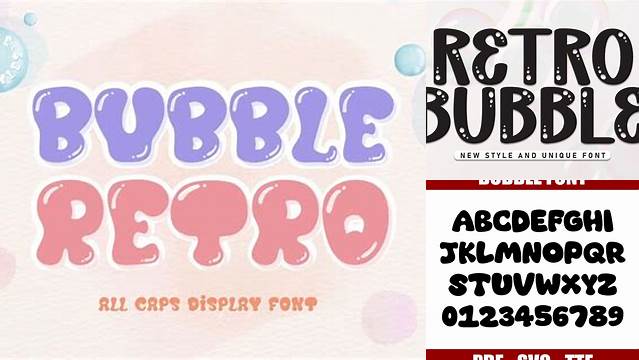
Retro Bubble Script BC Font: Free Download Guide
Hey guys! Are you on the hunt for that perfect retro bubble script BC font to spice up your designs? You've come to the right place! This font style is super popular for its playful and nostalgic vibe, making it ideal for posters, logos, invitations, and all sorts of creative projects. But finding the right font and making sure you can snag it for free can be a bit of a quest. So, let's dive into everything you need to know about retro bubble script BC fonts and how to download them without spending a dime.
What is Retro Bubble Script BC Font?
So, what exactly is a retro bubble script BC font? Imagine a font that's bubbly, rounded, and full of character, reminiscent of the groovy designs from the 1960s and 70s. That's the essence of bubble script! These fonts often feature thick strokes, smooth curves, and a fun, almost cartoonish appearance. The "BC" part might refer to a specific variation or style within the broader category of bubble script fonts. But the core appeal remains the same: it's all about capturing that retro, playful aesthetic. You might see this kind of font used in vintage-inspired advertising, children's books, or even trendy social media graphics. Think of it as a visual time machine, instantly transporting your designs back to a more whimsical era. The beauty of these fonts lies in their ability to evoke a sense of nostalgia and fun, making them a fantastic choice for projects where you want to add a touch of lightheartedness and retro flair.
Why Choose a Retro Bubble Script Font?
Why should you even bother with a retro bubble script font in the first place? Well, there are tons of reasons! First off, they’re incredibly eye-catching. The bold, rounded shapes and playful curves instantly grab attention, making them perfect for headlines, logos, and anything else you want to stand out. Plus, these fonts have a unique way of injecting personality and fun into your designs. They’re not your typical serious, corporate-looking fonts; they’re fonts that tell a story and evoke a feeling. And let's not forget the retro factor! Using a bubble script font can give your projects a cool, vintage vibe that’s super trendy right now. Whether you’re creating a poster for a retro-themed party, designing a logo for a fun brand, or just want to add some character to your website, a bubble script font can be a total game-changer. They’re versatile, expressive, and undeniably fun – what’s not to love?
Tips for Designing with Retro Bubble Script Fonts
Okay, you've got your retro bubble script BC font, your software is ready, but how do you actually use this font to create amazing designs? Here are a few tips to keep in mind. First, think about readability. Bubble script fonts are super fun, but they can sometimes be a little tricky to read, especially in large blocks of text. So, it's usually best to use them for headlines, logos, or other short bursts of text where you want to make a statement. When it comes to font pairing, try combining your bubble script with a simpler, cleaner font for body text. This will help balance the playful vibe of the bubble script and make your overall design more legible. Color is also key. Retro designs often feature bold, vibrant colors, so don't be afraid to experiment with bright hues that complement your font. And finally, don't overdo it! A little bubble script can go a long way. Use it sparingly to add a touch of retro flair, and avoid cluttering your design with too many competing elements. With a little practice, you'll be creating eye-catching designs with your retro bubble script font in no time.
Common Mistakes to Avoid When Using Bubble Fonts
So you're all set to use your awesome retro bubble script BC font, but before you dive in headfirst, let’s talk about some common pitfalls to avoid. Bubble fonts are fantastic, but they can be tricky if you’re not careful. One of the biggest mistakes is overusing them. Remember, bubble fonts are bold and attention-grabbing, so if you use them for everything, your design can quickly become overwhelming and hard to read. Think of them as a special ingredient – a little goes a long way. Another mistake is pairing them with the wrong fonts. Bubble scripts don’t always play nicely with other fancy or overly decorative fonts. They tend to work best with clean, simple sans-serif or classic serif fonts that provide a nice contrast. Also, be mindful of the context. Bubble fonts have a fun, retro vibe, so they might not be the best choice for serious or professional projects. Using them in a corporate report, for example, might not convey the right message. Finally, always double-check your kerning and leading. Bubble fonts often have unique spacing requirements, and adjusting these settings can make a big difference in readability. By avoiding these common mistakes, you’ll be well on your way to creating stunning designs with your retro bubble script font.
Pairing Retro Bubble Script Fonts with Other Fonts
One of the keys to making a retro bubble script BC font really shine is pairing it with the right companion font. Bubble fonts are fantastic for adding personality and flair, but they can be a bit overwhelming if used for everything. That’s where font pairing comes in! The goal is to find a font that complements your bubble script without competing with it. Generally, you’ll want to go for something clean and simple. Think classic sans-serif fonts like Helvetica, Arial, or Open Sans. These fonts are highly legible and won’t clash with the playful nature of the bubble script. If you’re looking for something with a bit more character, a simple serif font like Times New Roman or Georgia can also work well, especially for body text. The key is to create a visual hierarchy. Use your bubble script for headlines, logos, or other short bursts of text, and use the simpler font for the main body of your design. This will ensure that your design is both eye-catching and easy to read. Experiment with different combinations until you find a pairing that feels just right for your project. Remember, font pairing is an art, so don’t be afraid to try new things!
Best Free Retro Bubble Script Fonts
Alright, let's get down to the nitty-gritty – finding some awesome retro bubble script BC fonts that you can download for free! There are tons of fantastic options out there, but it's important to choose fonts that are not only stylish but also come with the appropriate licenses for your needs. One great place to start your search is Google Fonts. They offer a wide variety of free fonts, including several bubble script styles that are perfect for retro designs. Another fantastic resource is DaFont. This website has a massive collection of fonts, many of which are free for personal use. Just make sure to check the license before using any font for commercial projects. FontSpace is another excellent option, offering a wide selection of free fonts, including some unique and quirky bubble scripts. When browsing these sites, look for fonts with names that evoke the retro era, like